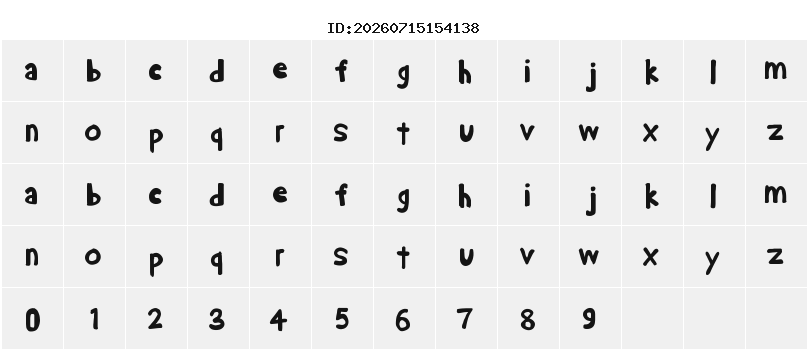
ace gaffigan Preview
• Font Name: ace gaffigan
• Full Font Name: ace gaffigan
About ace gaffigan.ttf
ace gaffigan.ttf is a modern, elegant sans-serif font designed for ultimate readability and visual harmony. Perfect for branding, headlines, web design, and print materials.